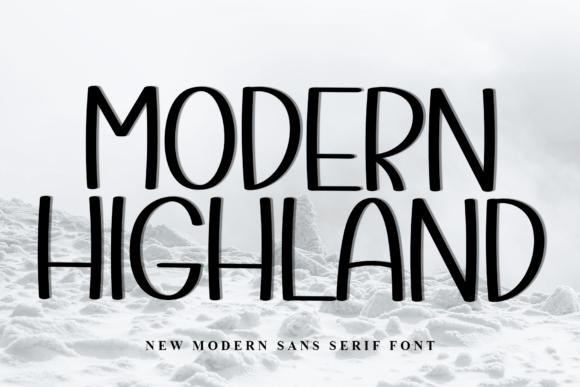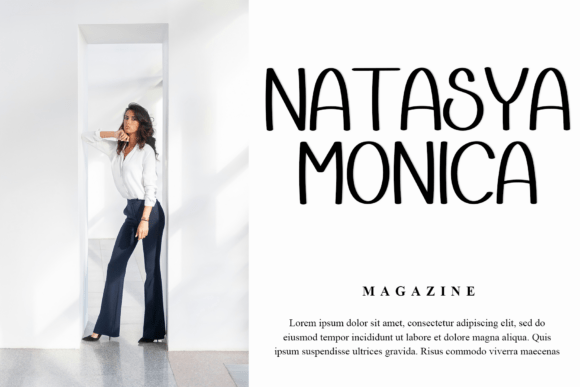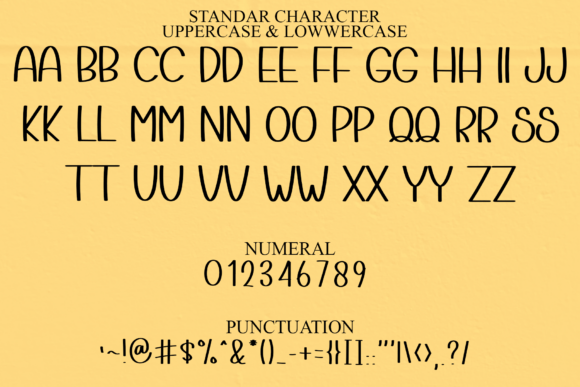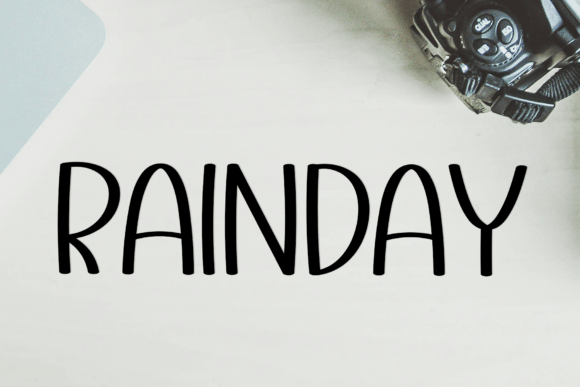
Modern Highland Font
About the Modern Highland Font
Get ready to be inspired by Modern Highland Font, a fresh and dynamic typeface for modern creators. This display handwritten font blends bold character with a warm, personal touch. Its playful, chunky strokes and friendly letterforms give off a casual, inviting vibe—perfect for kids’ designs, social posts, greeting cards, or branding that needs personality and charm. Eye-catching and full of life, this font brings handwritten energy to any creative project.
Modern Highland shines in headlines, short-form text, and branding applications where a friendly, approachable feel is desired. It works exceptionally well for logos, posters, and packaging for products targeting younger audiences or those with a playful brand identity. However, its chunky strokes make it less suitable for body text or UI elements requiring high readability at smaller sizes.
Pairing Modern Highland with a clean sans-serif like Open Sans for body copy creates a balanced contrast, allowing the display font to pop while maintaining legibility. For a more playful aesthetic, consider pairing it with a rounded geometric sans-serif such as Lato. A classic serif like Merriweather could also provide a sophisticated counterpoint, adding a touch of elegance without overshadowing the font’s inherent energy.
The font’s overall personality is best described as bold yet approachable; it possesses a friendly, casual energy that is both eye-catching and inviting. It suits brands focused on family, children’s products, handmade goods, and small businesses aiming for a warm and personal connection with their audience.
Modern Highland Font Usage Examples
Modern Highland Font Example